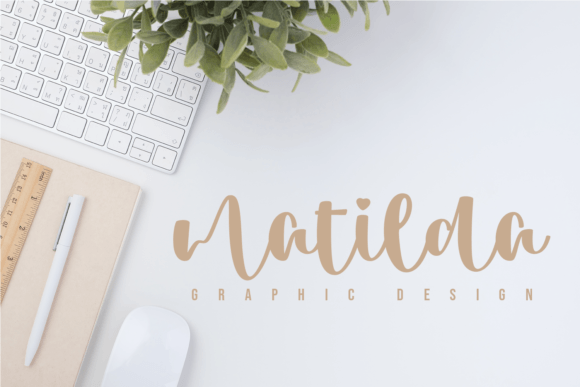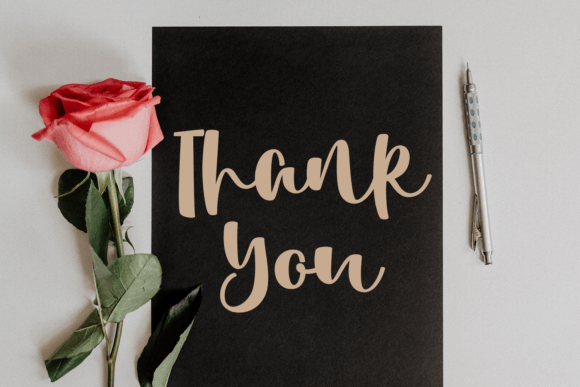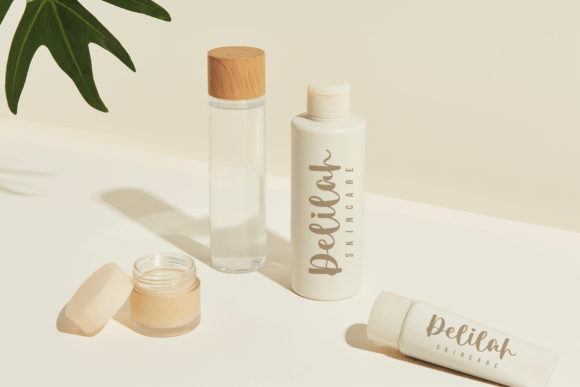
The Perfect Touch of Whimsy: Discovering the Avocado Font
Have you ever been rummaging through your grandmother’s old trunk, filled with memories and treasures, and stumbled upon a beautifully handwritten letter? The way the words dance across the page, the delicate flourishes, and the personal touch – it’s a moment that sparks creativity and sets the heart aflutter. For designers, that same feeling of nostalgia and wonder can be captured with the Avocado Font, a stylish and elegant script font that adds a handwritten touch to any design.
Avocado Font is more than just a typeface – it’s a way to convey emotions, tell stories, and connect with your audience on a deeper level. Whether you’re designing a wedding invitation, a thank you card, or a logo, Avocado Font is the perfect choice to add a touch of whimsy and sophistication. Its versatility and beauty make it a valuable asset for designers, and with its endless possibilities, the Avocado Font is sure to become a favorite in your design arsenal.
- Unique Characteristics: The Avocado Font features a unique, hand-drawn design with a mix of modern and vintage elements, making it suitable for a wide range of applications, from branding to editorial content.
- Font Style: The Avocado Font is available in regular, italic, bold, and bold italic styles, providing users with a range of options for creating visually appealing typography.
Avocado Font Review
Overall, I think Avocado Font is an interesting choice for designers looking for a unique and playful aesthetic. It’s a great option for projects where you want to add some whimsy and personality.
- ✨ Highly customizable: Avocado Font offers a range of weights and styles, making it easy to tailor the font to your specific needs.
- ✨ Versatile: This font works well for both digital and print projects, from logos and branding to website headers and advertisements.
- ✨ Unique look: The Avocado Font’s quirky design elements give it a distinctive feel that can help your project stand out from the crowd.
- ⚠️ Limited legibility: In certain situations, the Avocado Font’s unusual design can make it difficult to read, especially at small font sizes.
- ⚠️ Limited compatibility: Some users have reported issues with the font’s compatibility across different operating systems and devices.
While Avocado Font has its limitations, it’s still a solid choice for designers looking to add some personality to their projects. With careful use and consideration of the font’s limitations, I think it can be a valuable addition to your design toolkit.
Getting the Most Out of Avocado Font
To get the most out of Avocado Font, try using it in combination with bold or italic text to create visual interest.
Also, consider using Avocado Font for headings and titles, and a standard font for body text.
Avocado Font is a versatile font that can be used in a variety of contexts, including:
- Food blogs and recipes
- Health and wellness branding
- Environmental and eco-friendly marketing
Alternatives to Avocado Font
Great Vibes is a beautiful, elegant script font that is perfect for creating a luxurious and high-end feel. It’s ideal for use in wedding invitations, luxury branding, and other special occasions. Great Vibes is more ornate and decorative compared to Avocado Font, which makes it a great choice for projects that require a touch of sophistication.
Carolyna Pro is a modern script font that is highly customizable and versatile. It’s suitable for use in branding, logos, and advertising materials. Carolyna Pro is more modern and sleek compared to Avocado Font, which makes it a great choice for projects that require a contemporary feel.